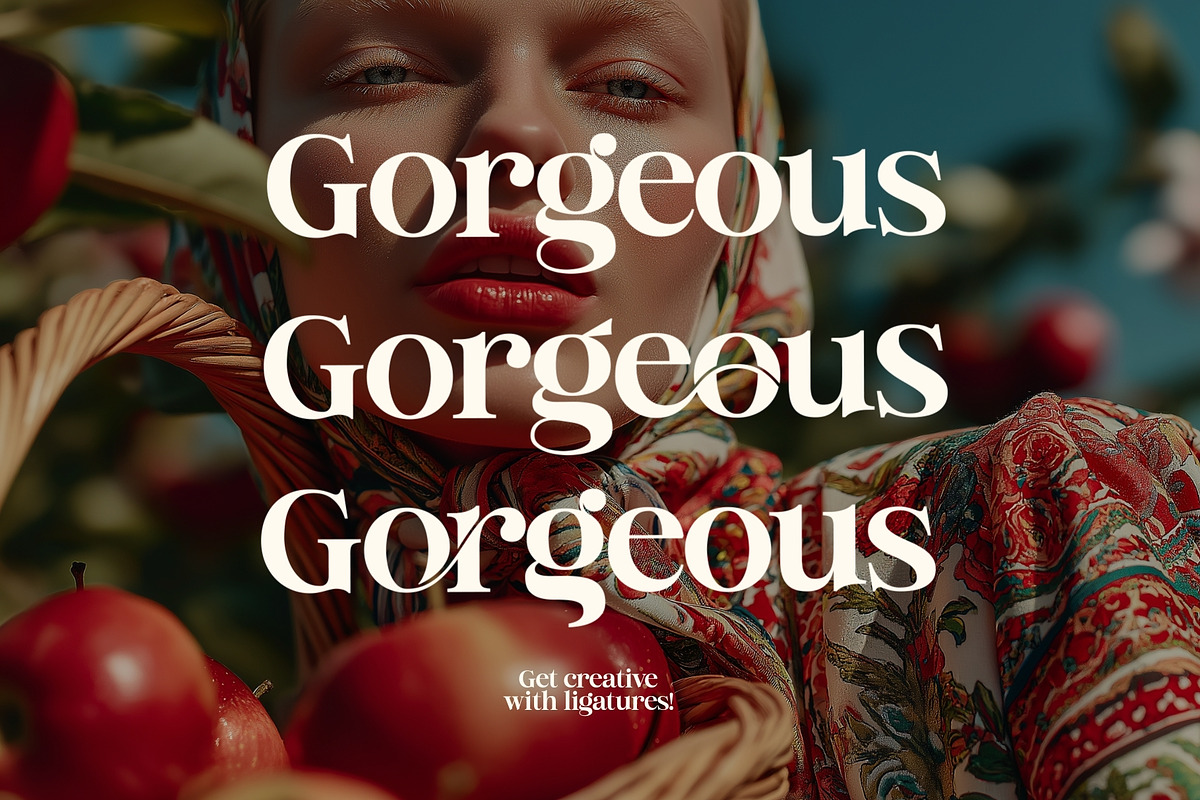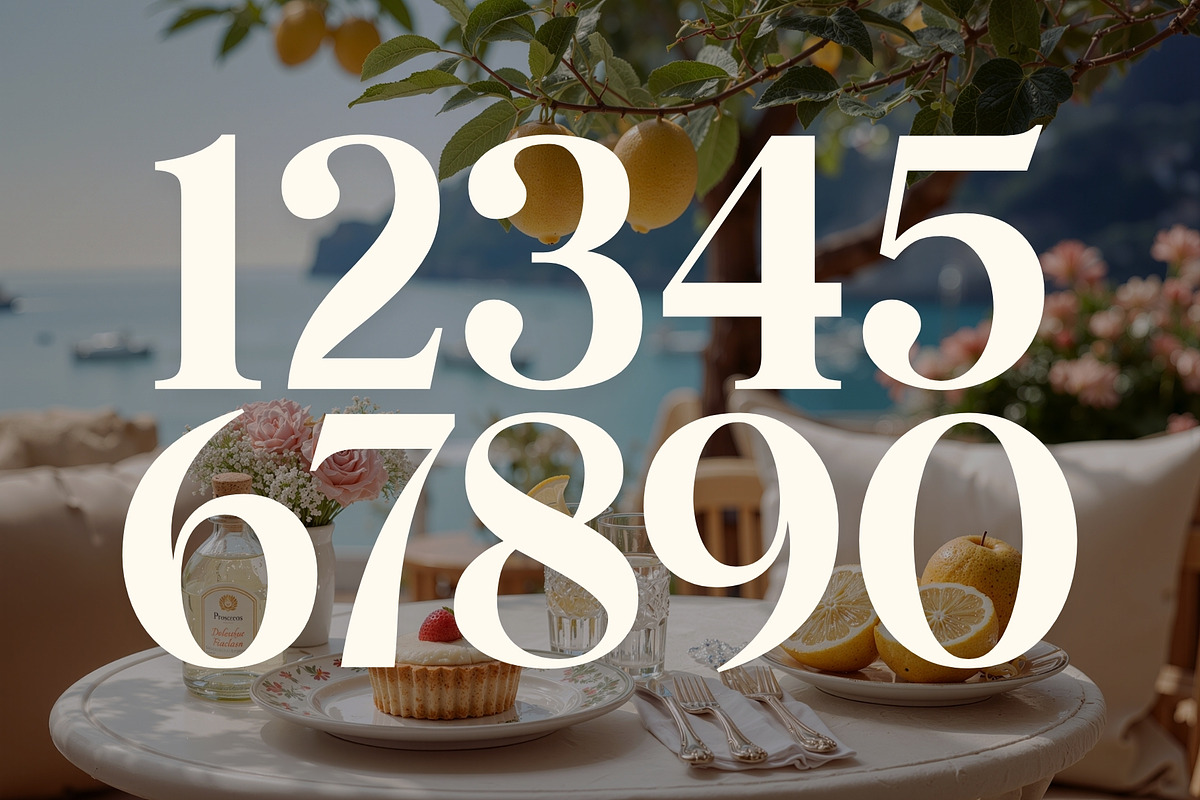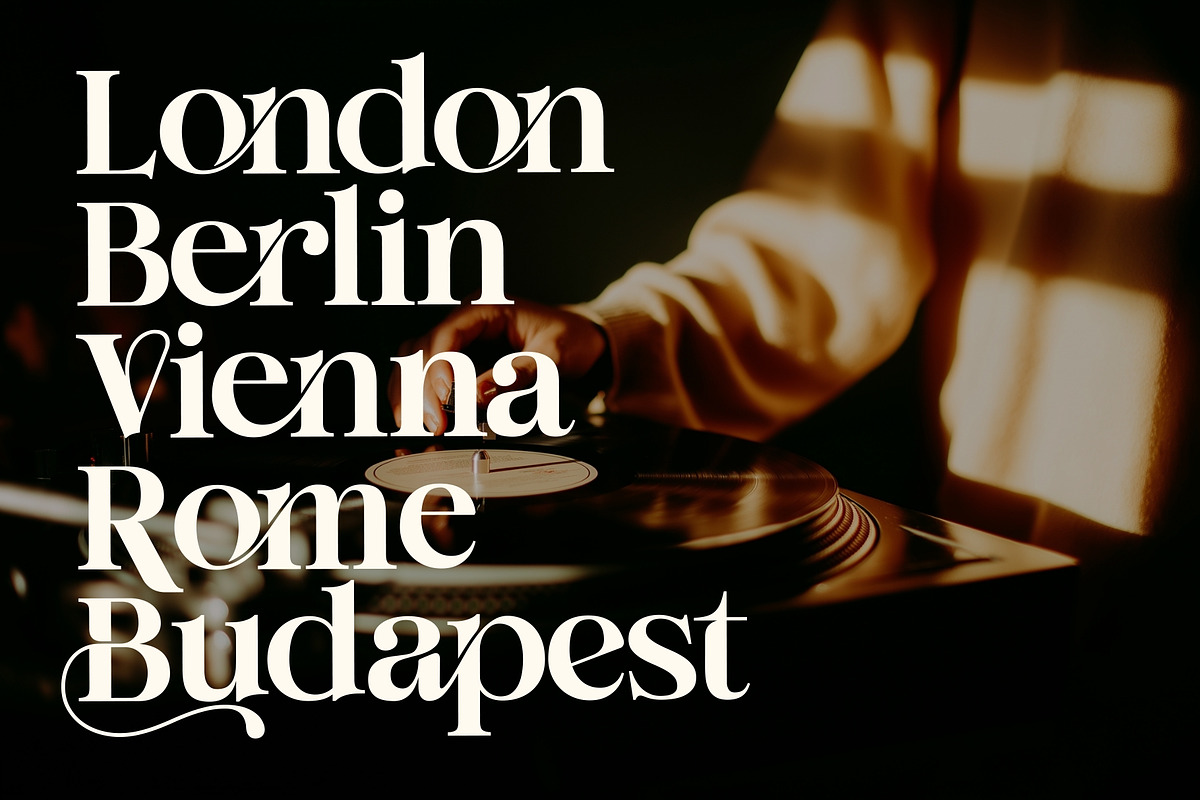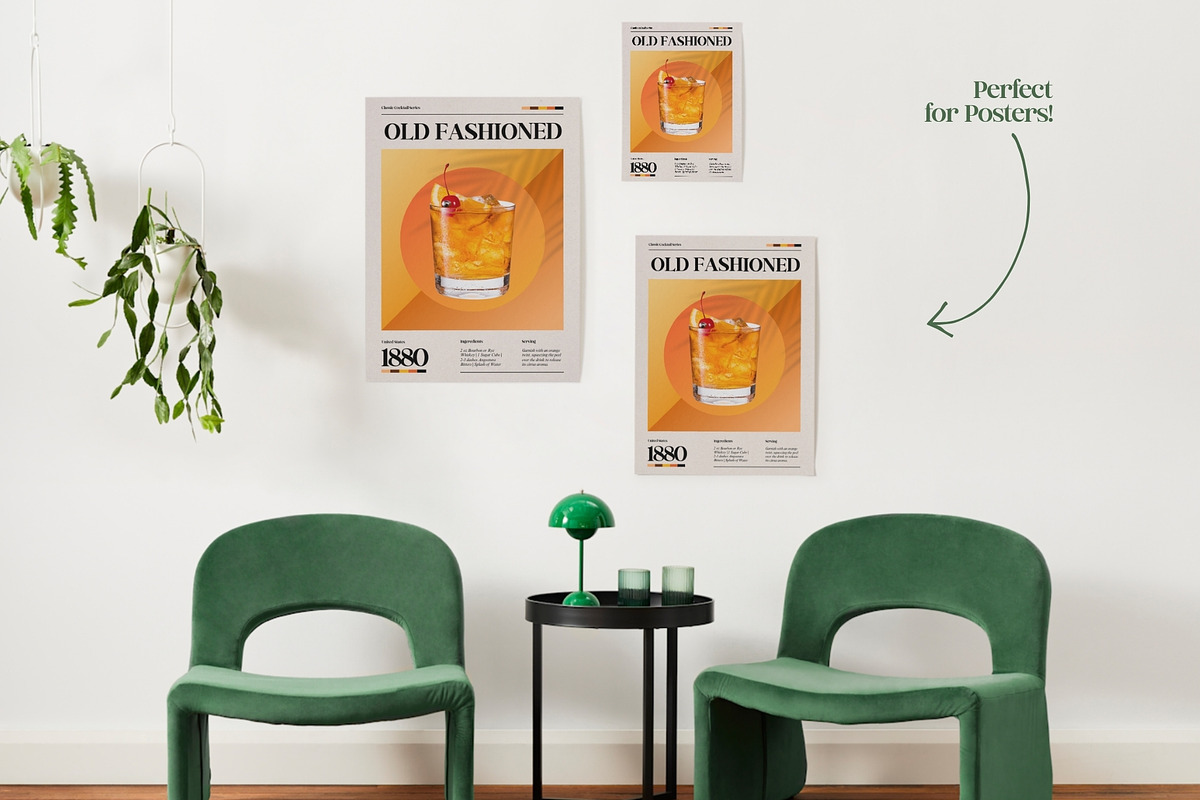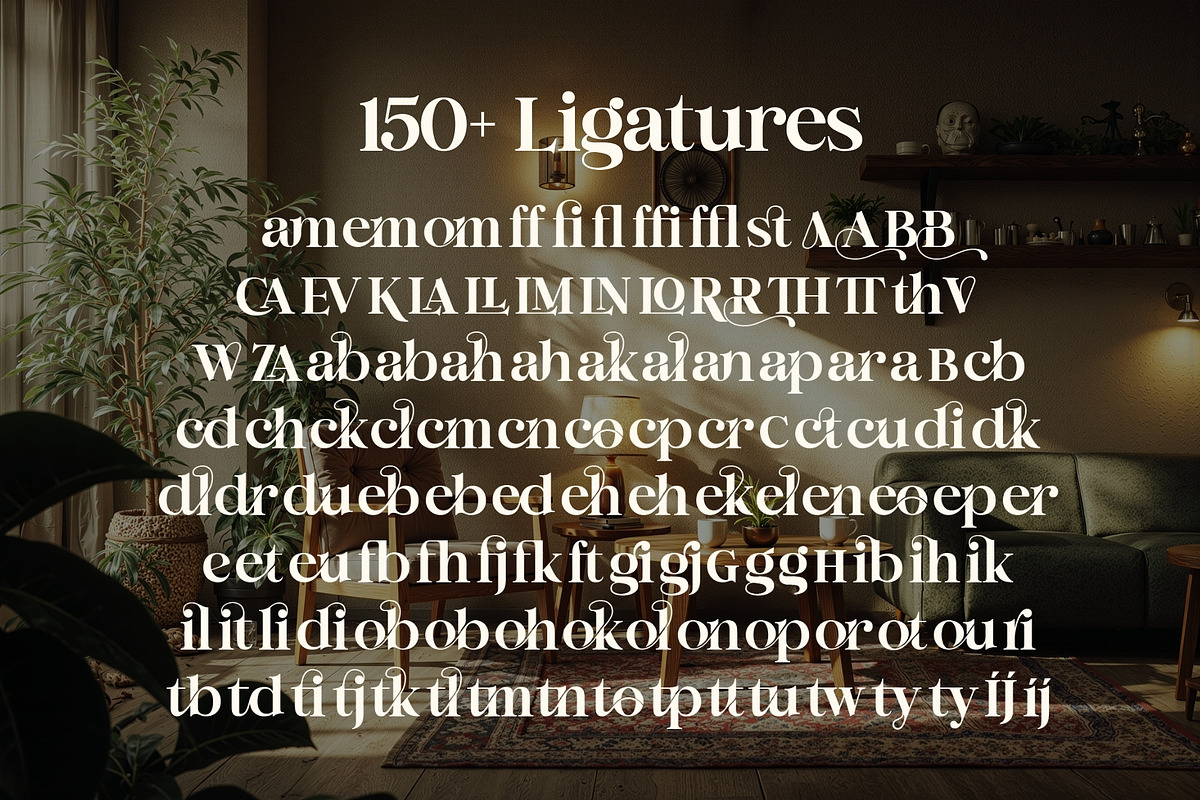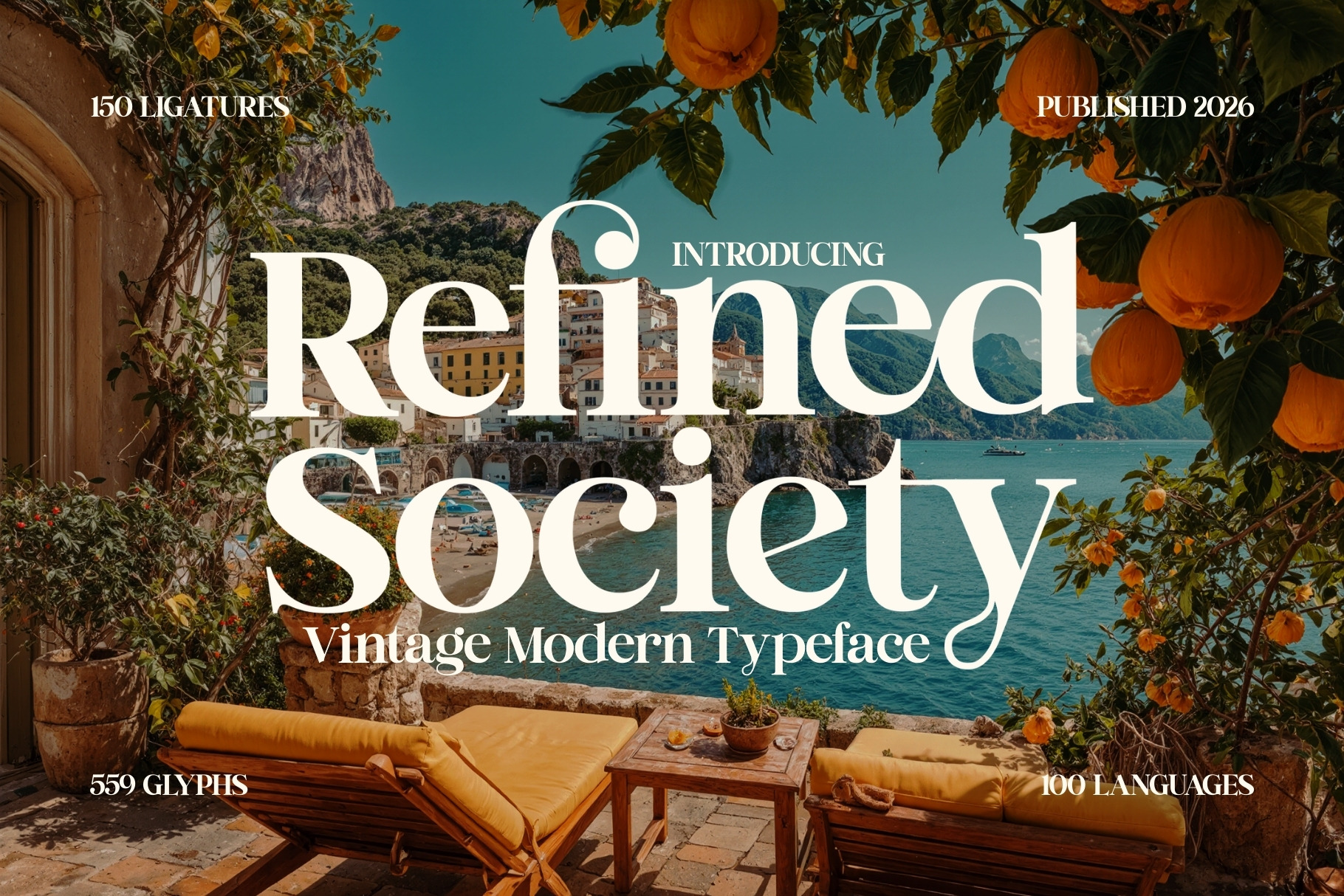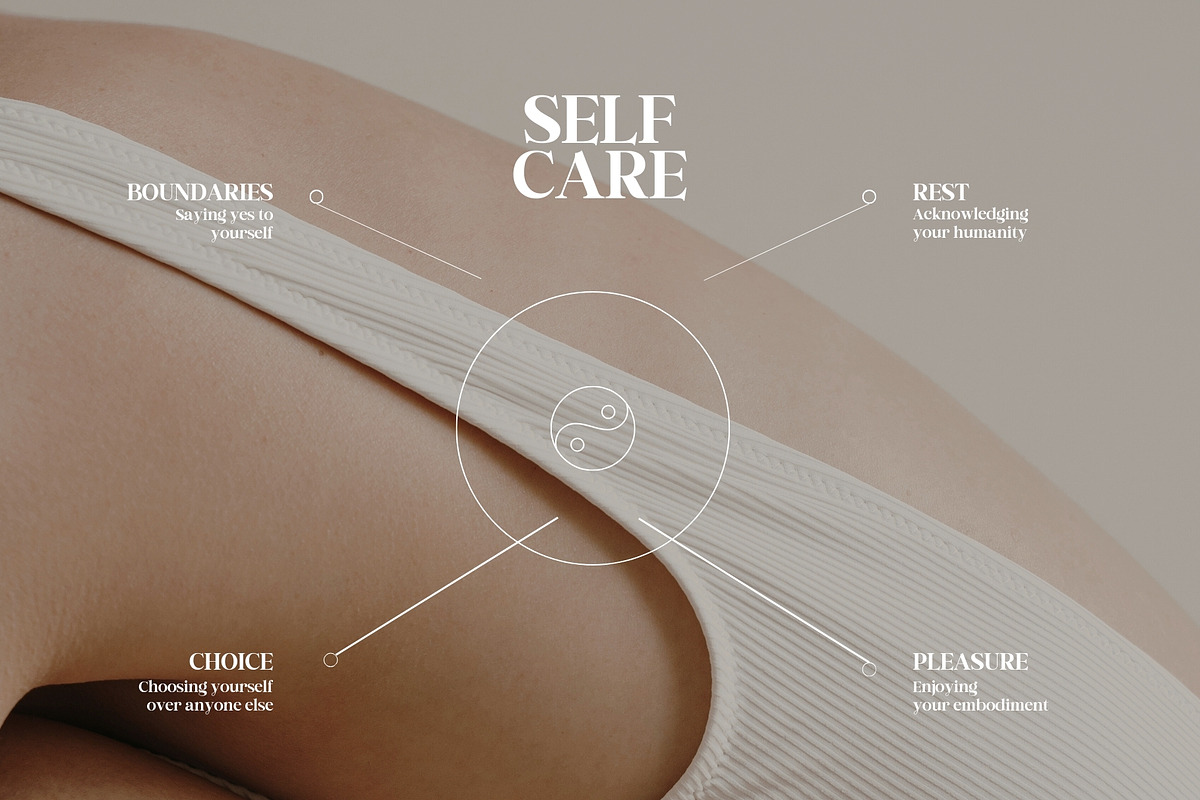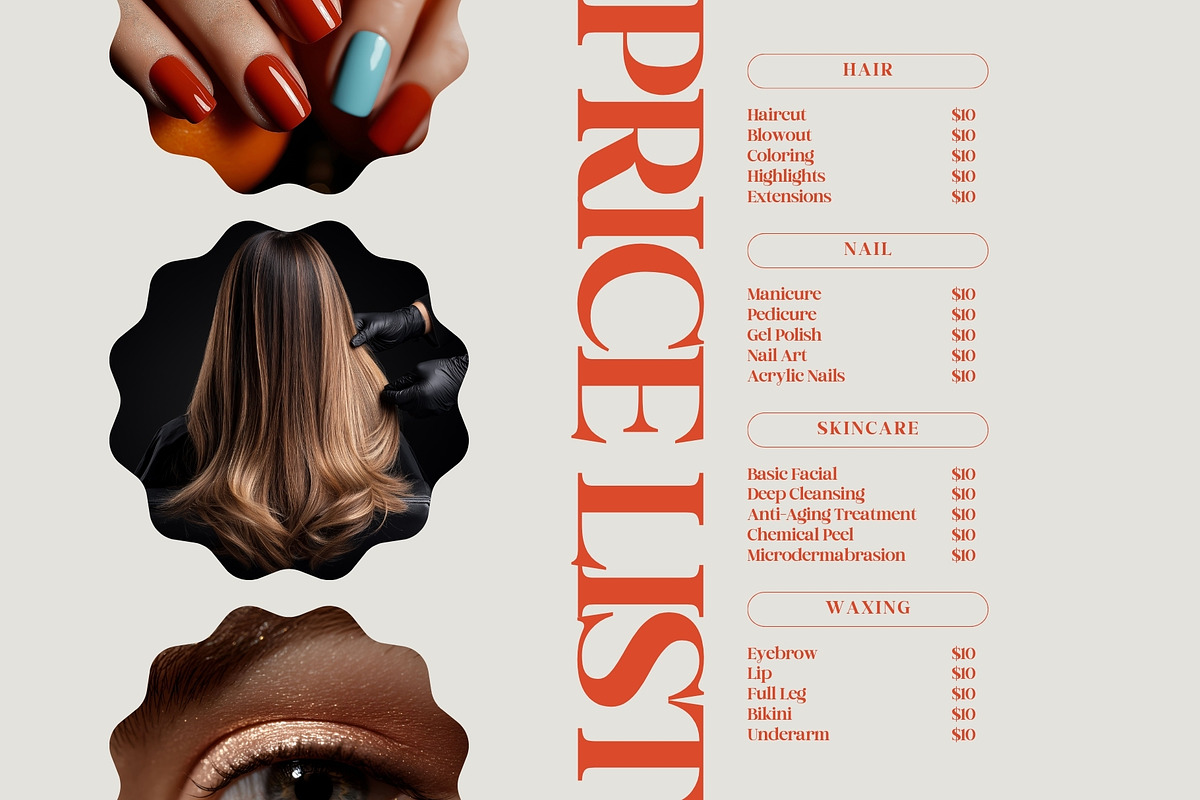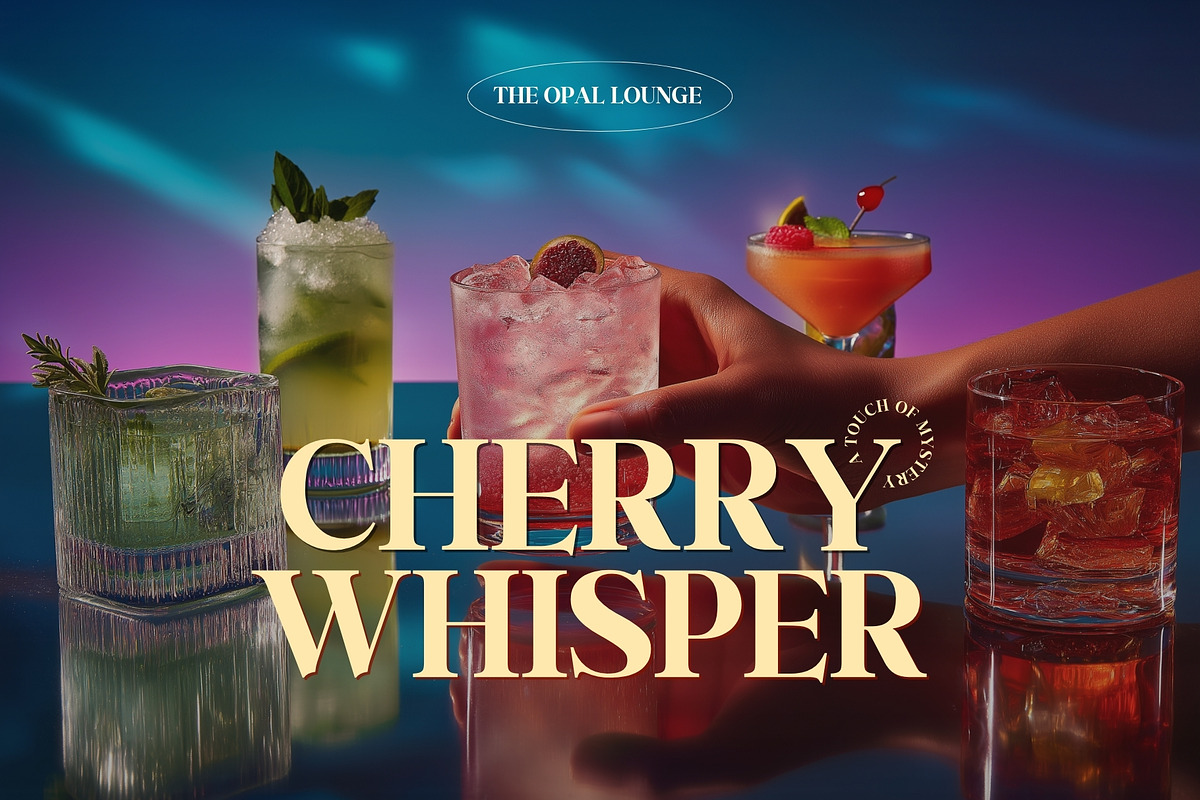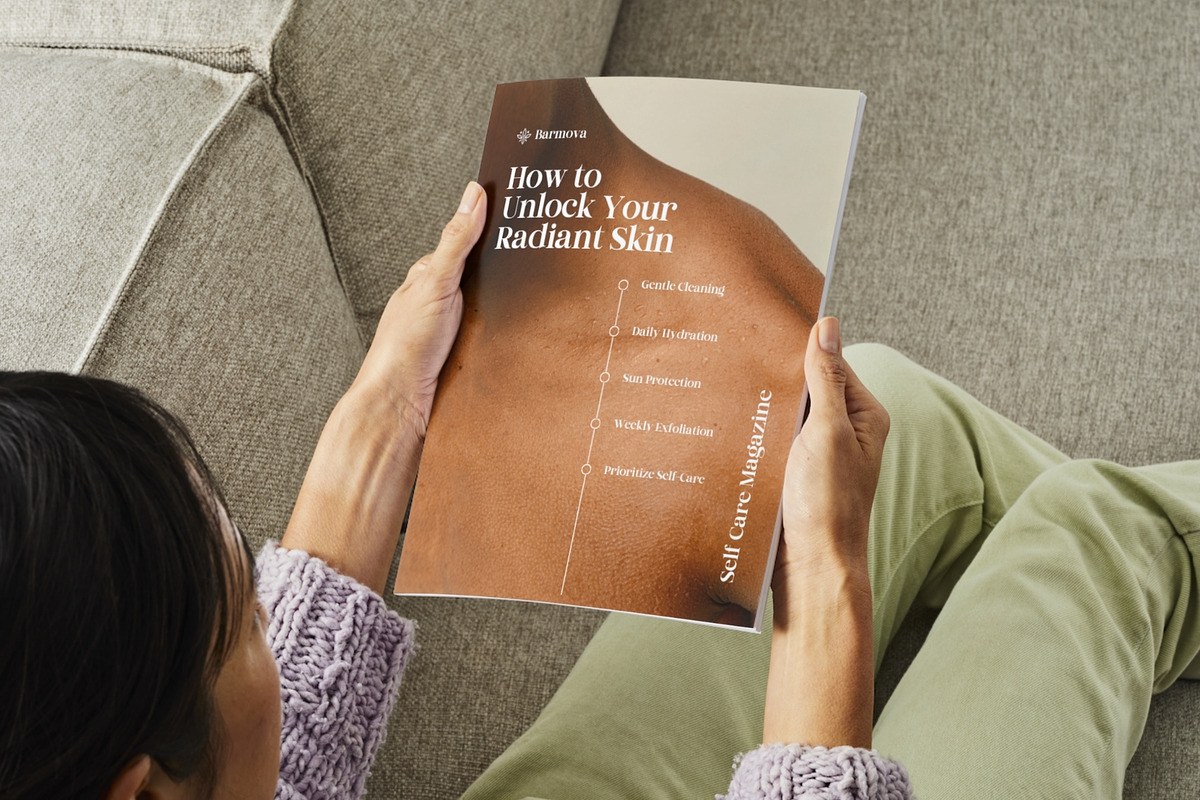
Refined Society - Vintage Typeface
Introducing Refined Society, a luxurious vintage-modern serif typeface crafted for designers who demand elegance, versatility, and powerful typographic features. Combining timeless serif structure with contemporary refinement, this typeface strikes the perfect balance between classic beauty and modern sophistication.
Refined Society was designed to be a true workhorse font — one that performs effortlessly across a wide range of creative projects. Its graceful proportions, confident serifs, and carefully balanced letterforms create a polished aesthetic that feels both bold and refined.
What truly sets Refined Society apart is its extensive typographic depth. With an impressive 150 elegant ligatures, the font allows letters to flow together naturally, giving your typography a custom, editorial-quality appearance. These ligatures add rhythm, style, and subtle luxury to headlines, logos, and branding systems.
Beyond its stylistic elegance, Refined Society is built for serious design work. Featuring 549 glyphs and support for 100 languages, this typeface ensures global compatibility while giving designers a rich set of characters and alternatives to explore.
Despite its refined personality, Refined Society remains highly readable and adaptable, performing beautifully in both large display settings and smaller text applications. Its versatility makes it an essential addition to any designer’s toolkit.